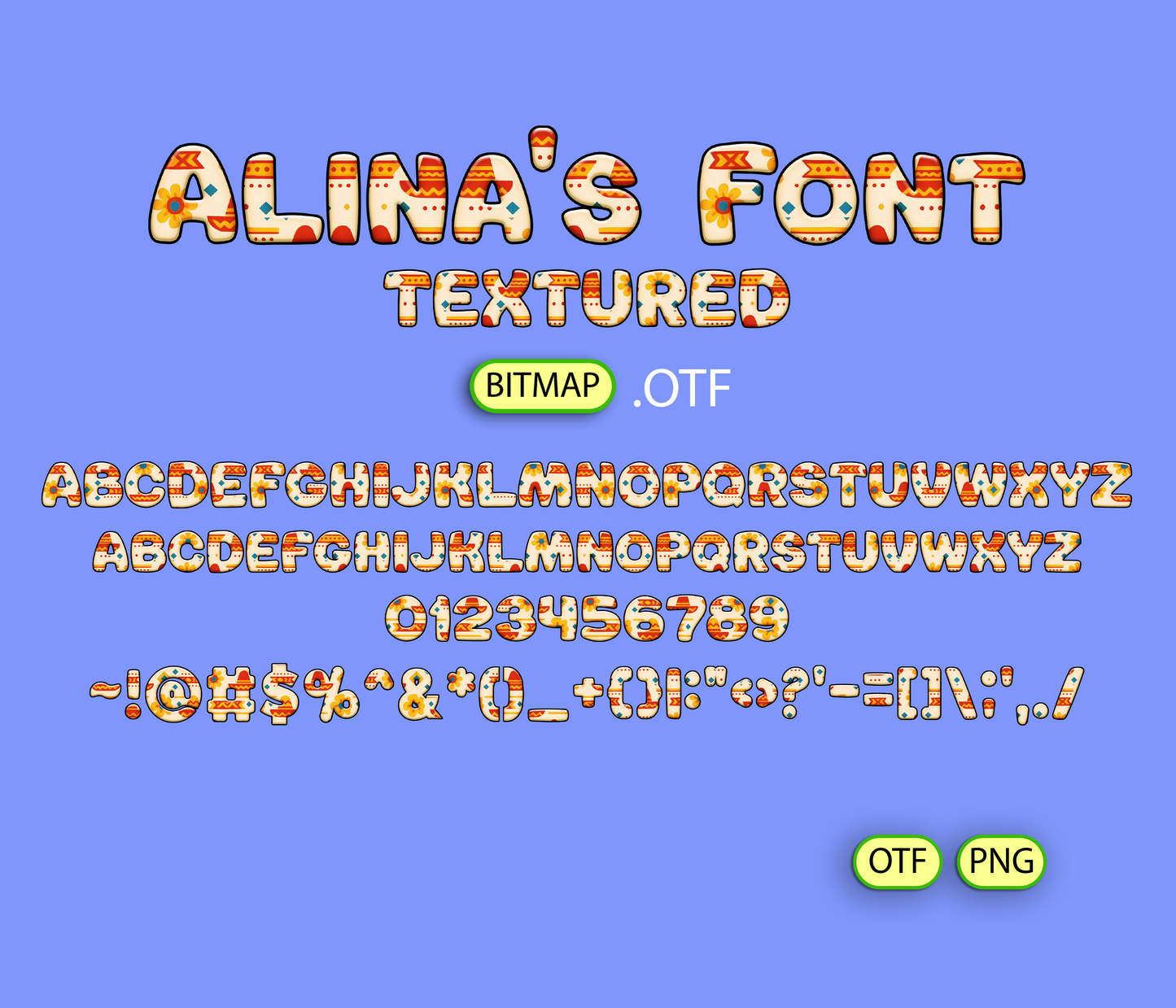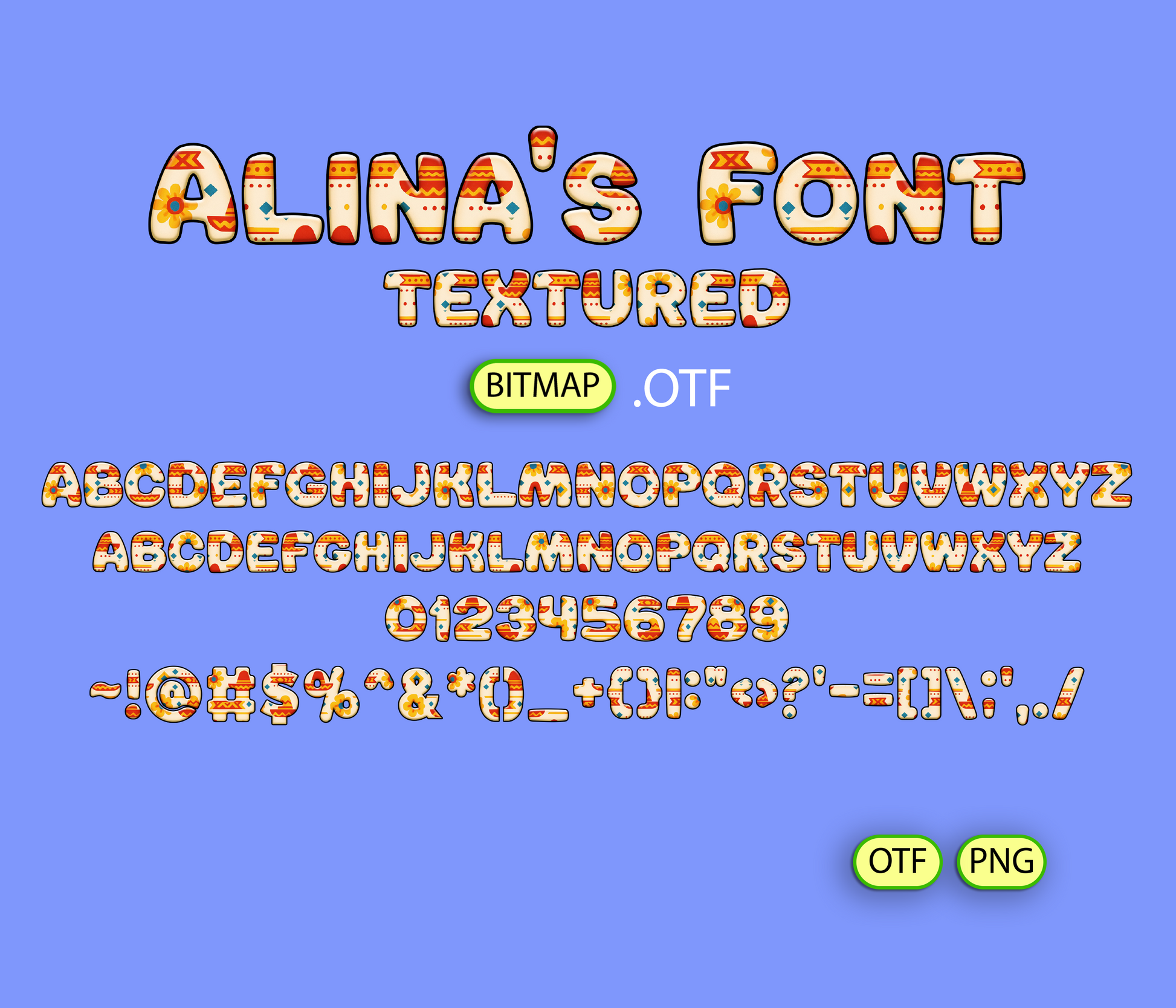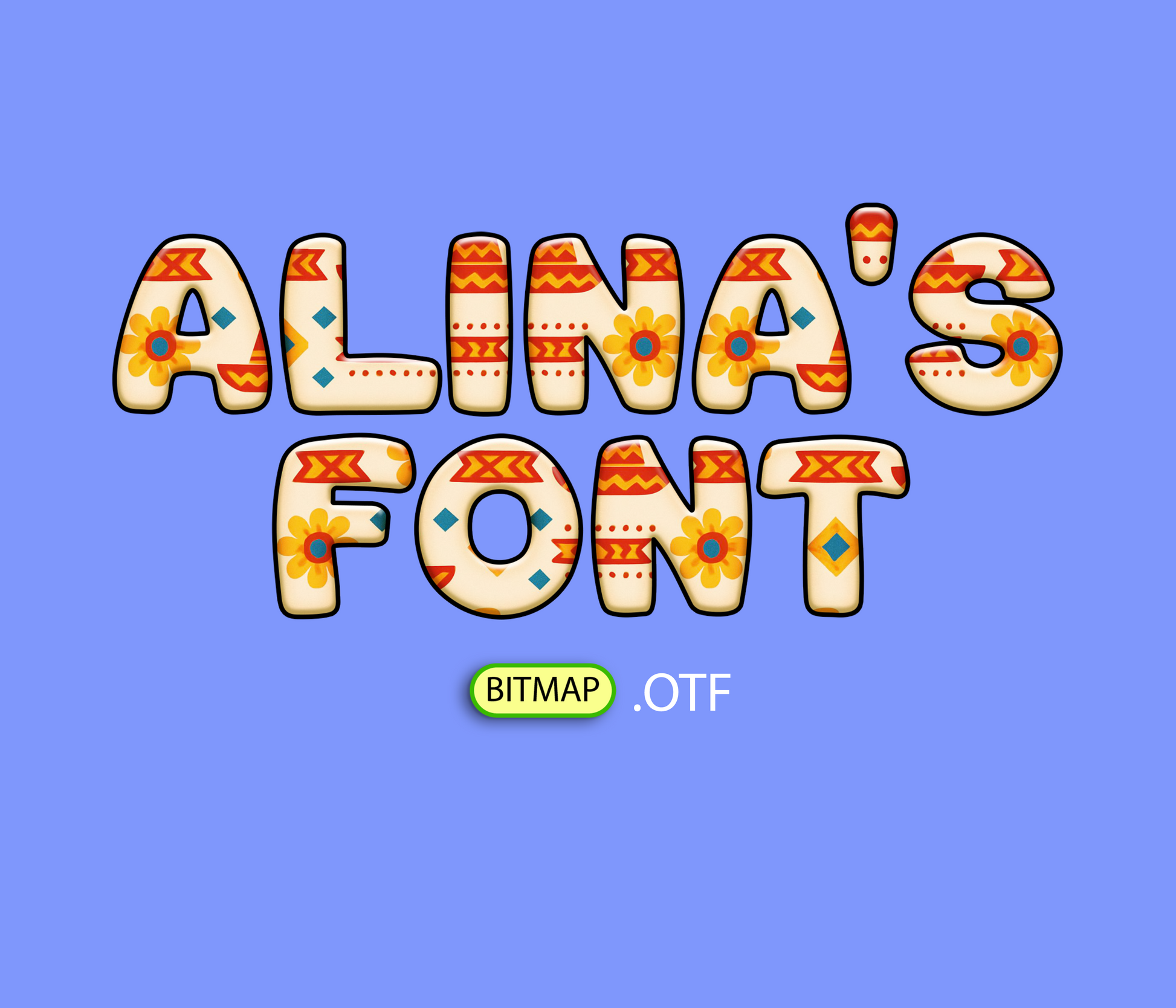
Mariposa Azteca Typeface Textured
Venture into the captivating universe of Mexico's ancestral beauty with our Mariposa Azteca Typeface, capturing the magic of cactus blooms and stone archways. Developed for regional food enterprises, cultural organizations, festivity managers, and creative specialists, this font brings the energetic, mystical ambiance of village squares and convent gardens to your artistic endeavors. Build enchanting layouts, southwestern-themed items, or interactive content with the radiant, folkloric charm of pottery glazes and wooden shutters.
Our Mariposa Azteca Typeface presents detailed, hacienda-inspired accents and dynamic characters that embody the jubilant yet sacred nature of Mexican craft traditions. Perfect for:
- Restaurant Business: Establish compelling brand presence, outdoor signage, and promotional content for elote stands, pulque taverns, and authentic Mexican food markets
- Heritage Celebrations: Exceptional for Posada processions, Mexican wedding ceremonies, and commemorative materials that honor national customs
- Online Campaigns: Transform websites, digital newsletters, and social media with expressive lettering that communicates cultural pride and festive spirit
- Travel Marketing: Incorporate authentic Mexican elements into adventure magazines, cultural retreat brochures, and promotional assets for archaeological tours
- Personal Art: Add Mexican sophistication to scrapbook pages, craft projects, and decorative pieces inspired by Mexican folk traditions